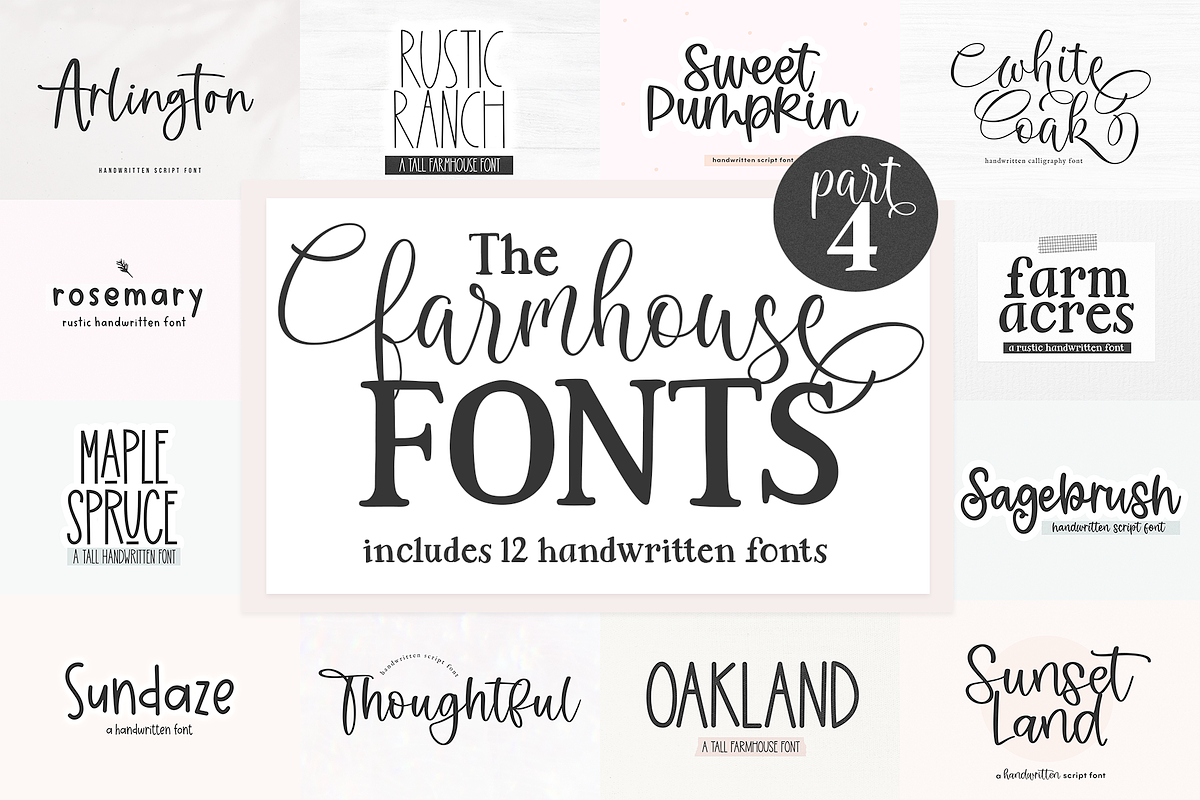
Farmhouse Font Bundle | Part 4 Free Download is a charming collection of rustic, handcrafted fonts perfect for farmhouse-inspired designs, DIY projects, home décor signage, and cozy branding. This bundle brings warmth, personality, and a handmade feel to your creative toolkit.
Featuring a variety of script and serif styles, Farmhouse Font Bundle | Part 4 Free Download allows you to mix and match typefaces that pair beautifully together. Whether you're crafting quote signs, branding a small business, or designing seasonal prints, this bundle offers all the tools you need for an authentic farmhouse aesthetic. Try it today in your mockups—then upgrade to a commercial license when you're ready to bring your ideas to life.